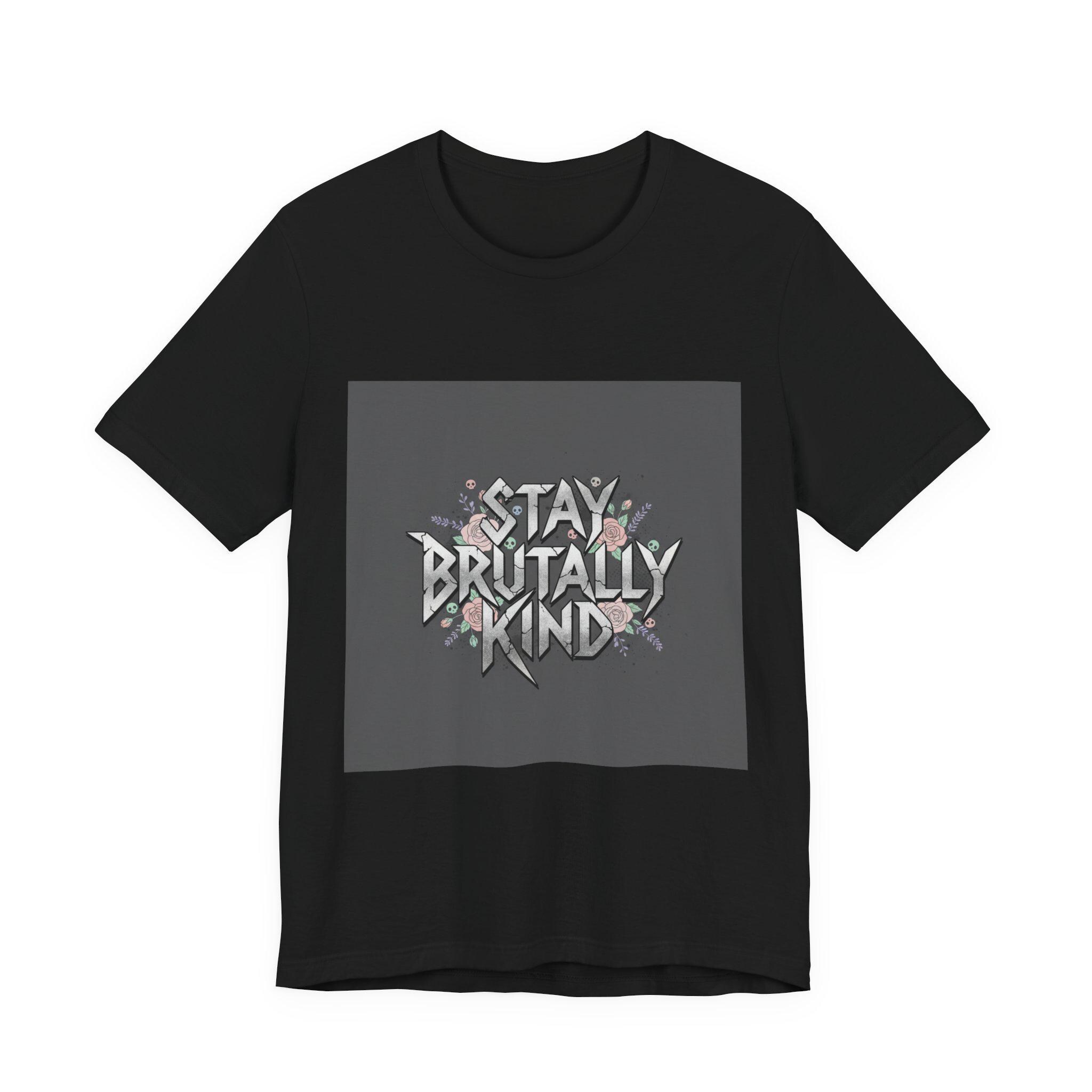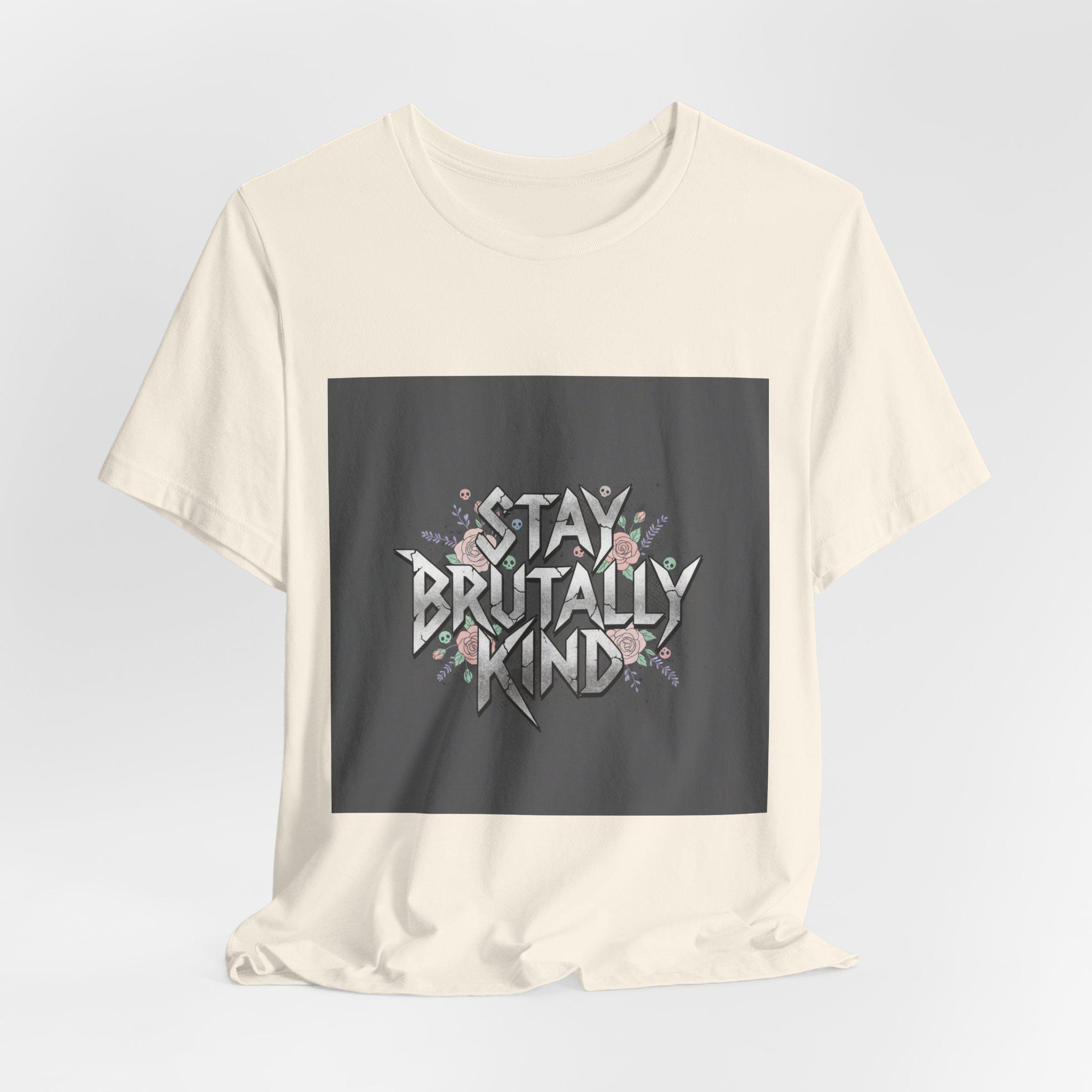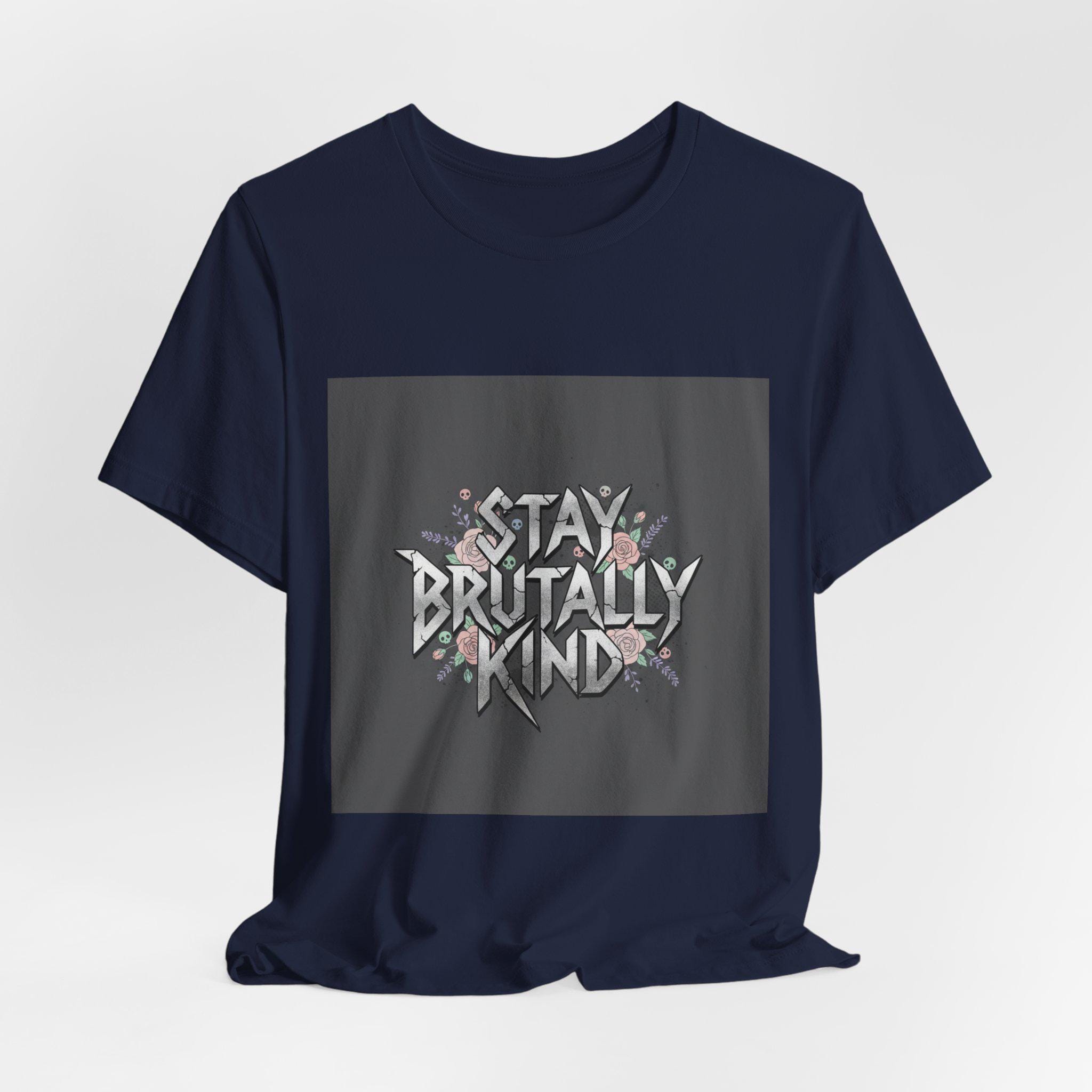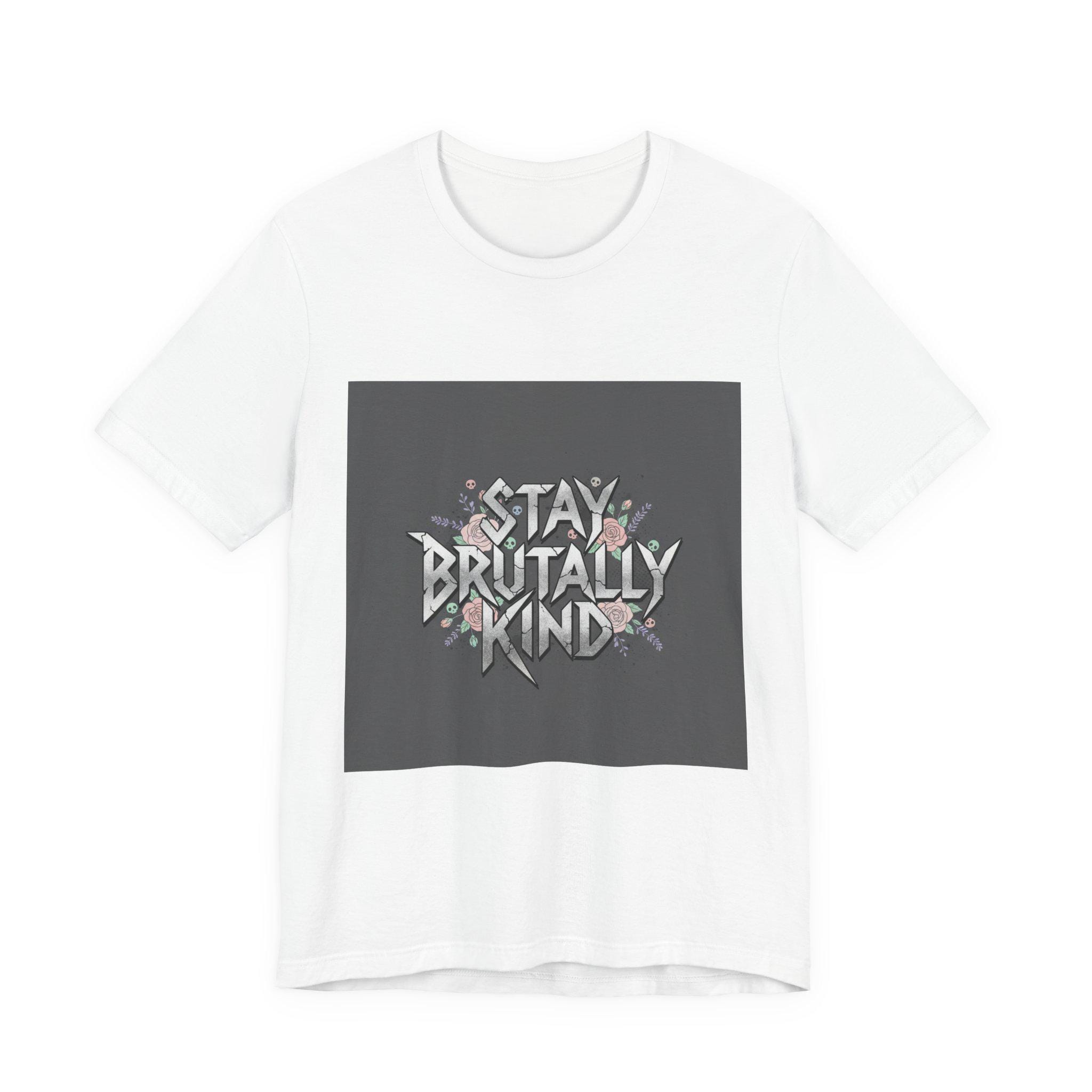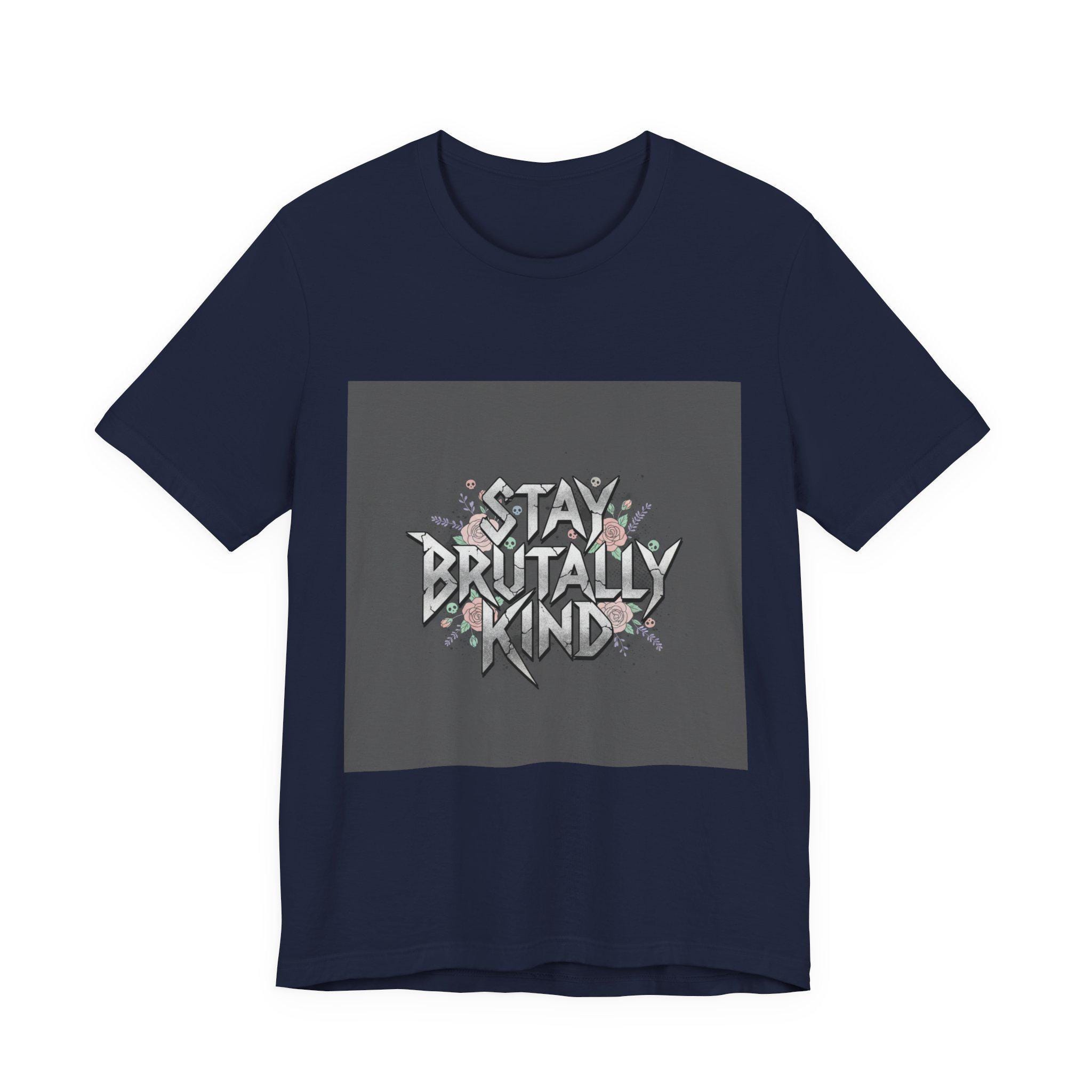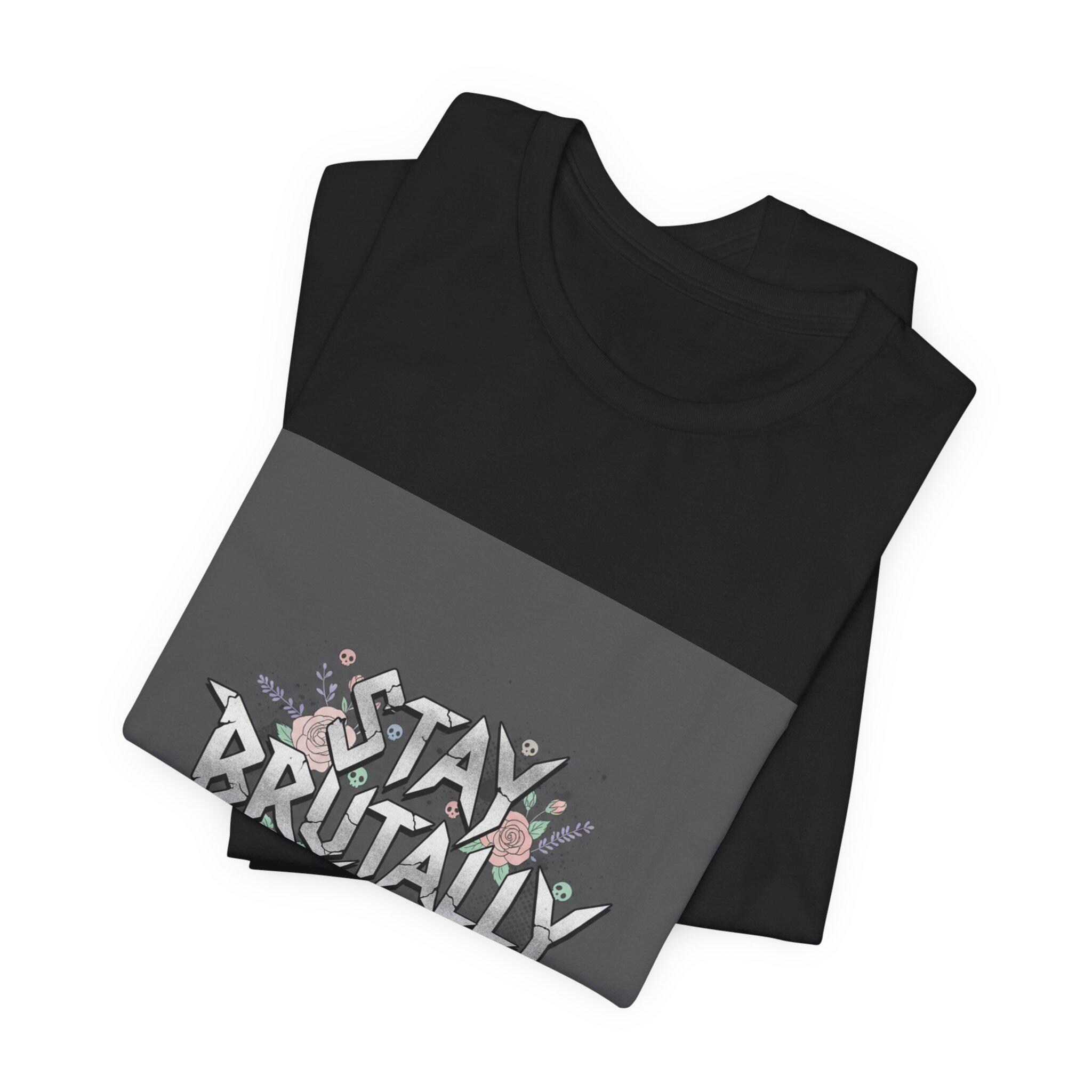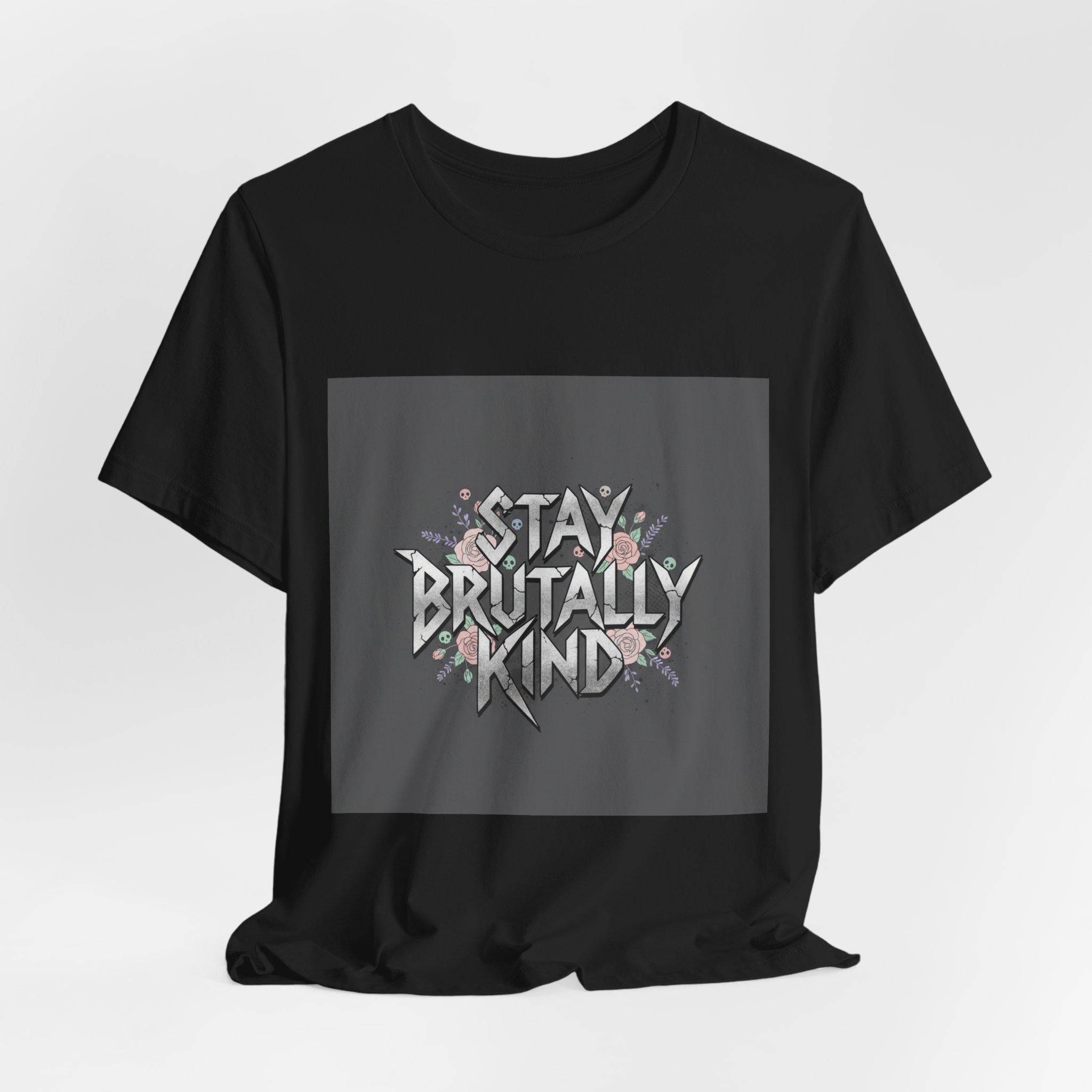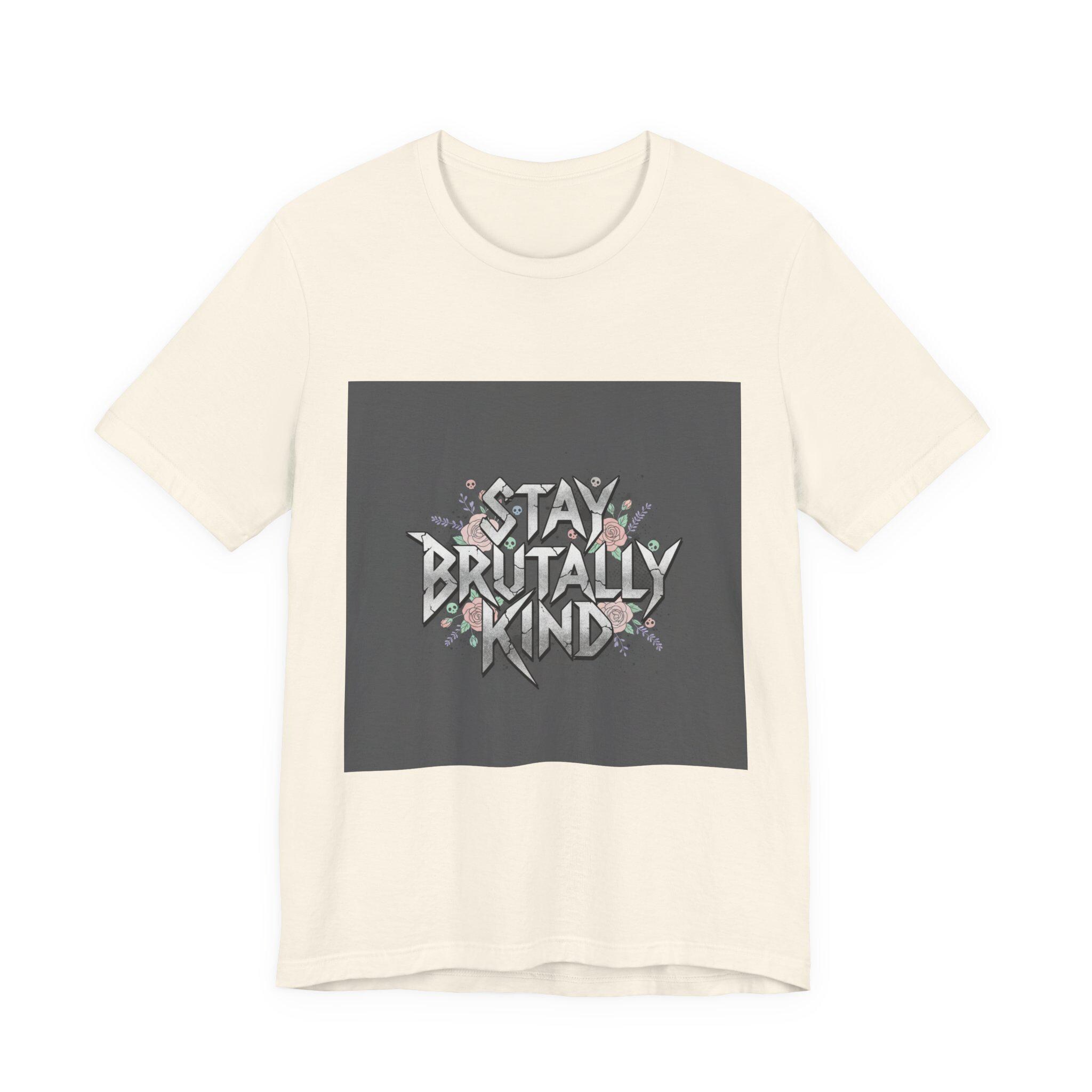
Brutally Kind metal font shirt, Heavy Metal Wellness tee | gothic wellness quote
Stay Brutally Kind tee pairs a hard-rock metal font with a playful floral backdrop to flip the aggression of heavy-metal visuals into a tongue-in-cheek wellness statement. The bold, spiky lettering reads as an edgy mantra while soft pastel blooms around the text create contrast — an aesthetic riff on the “heavy metal wellness” trend that mixes gothic typography with wholesome self-care messaging. On breathable, lightweight cotton, this shirt brings subversive humor to everyday wear for alternative style lovers who like their kindness loud.